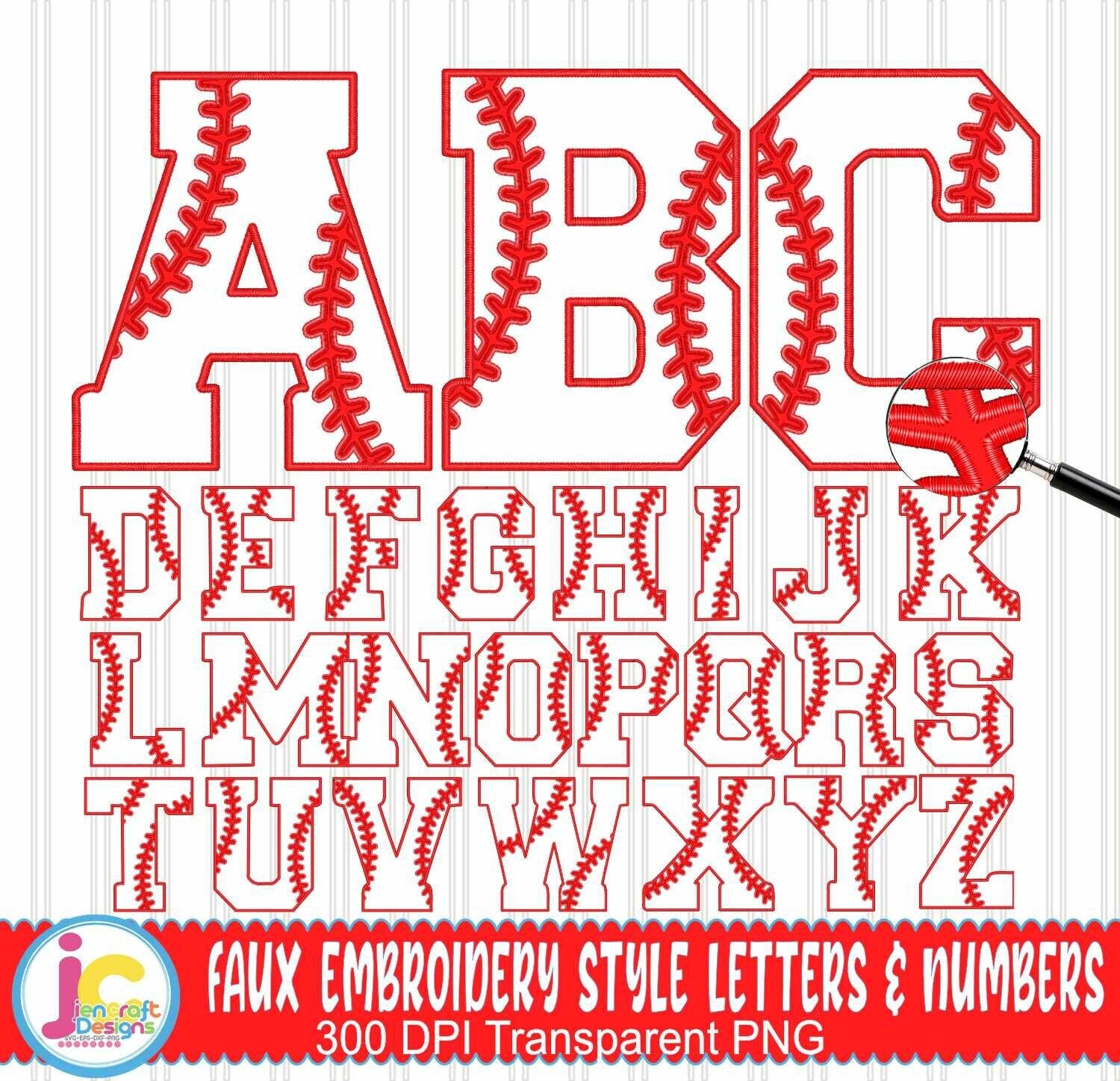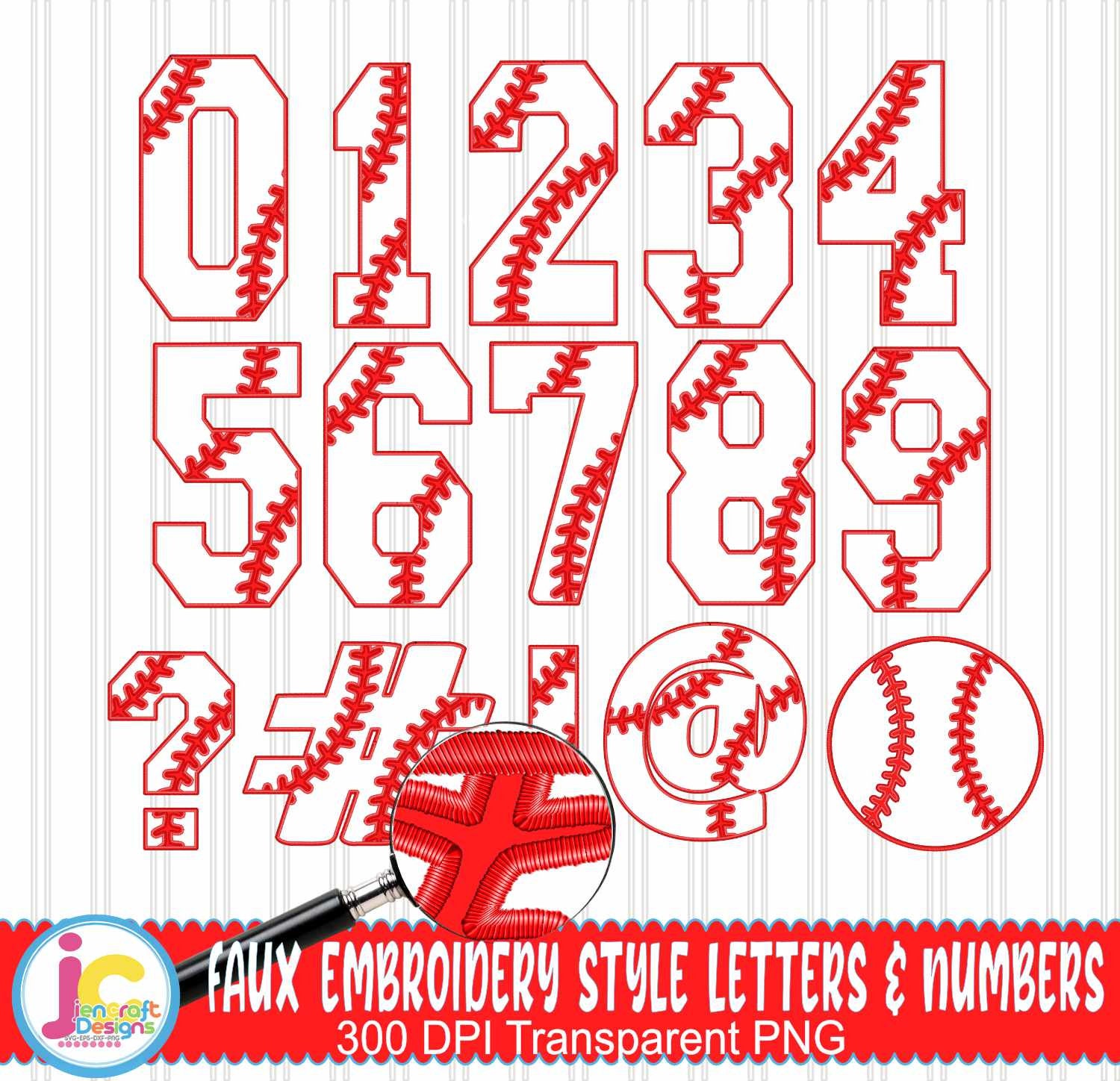
Baseball png Faux Embroidery Stitch Alphabet, Full Alphabet Bundle alpha pack digital download, Sublimation design Printable Artwork, Digital File, A to Z letters create your own words